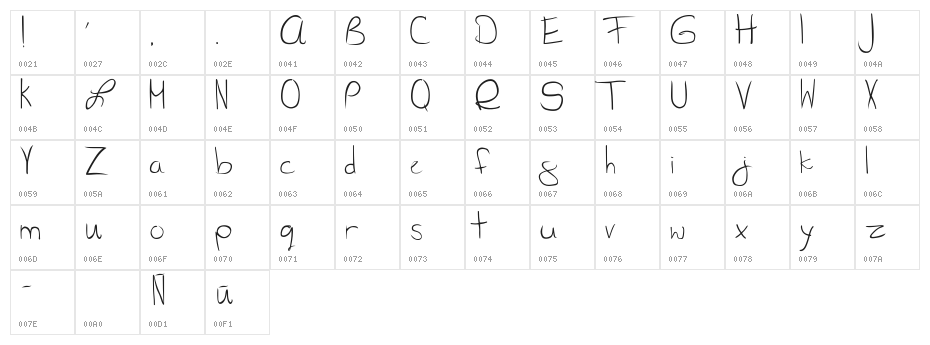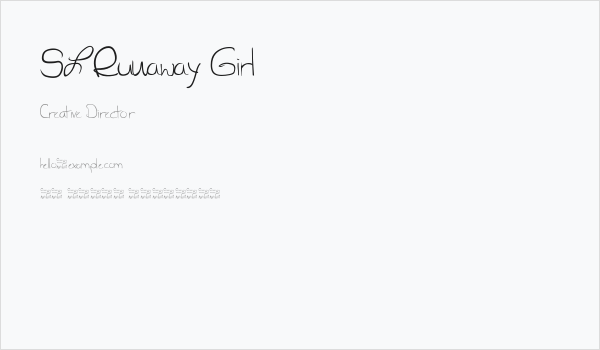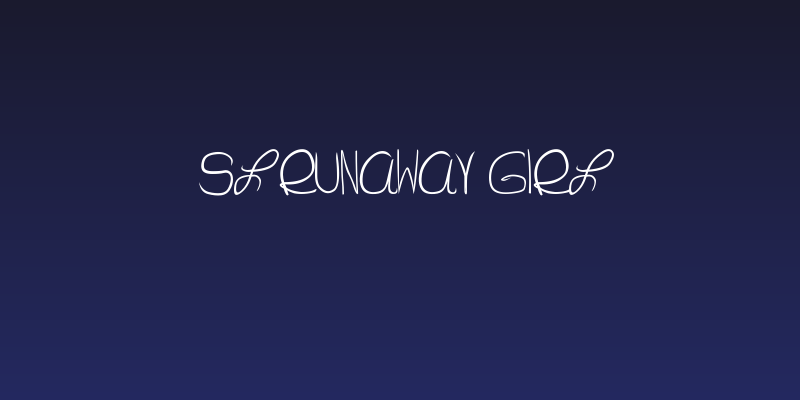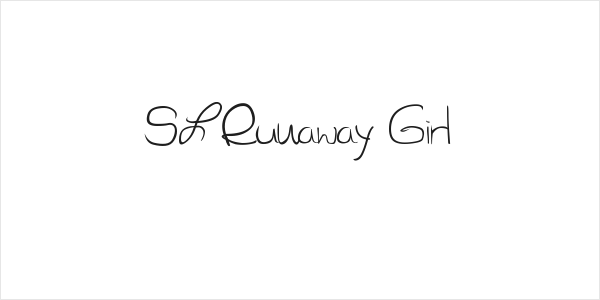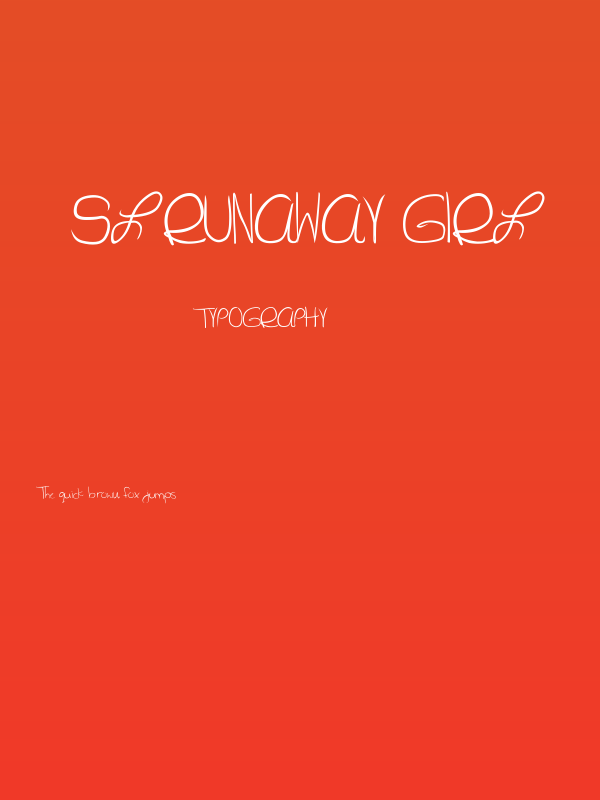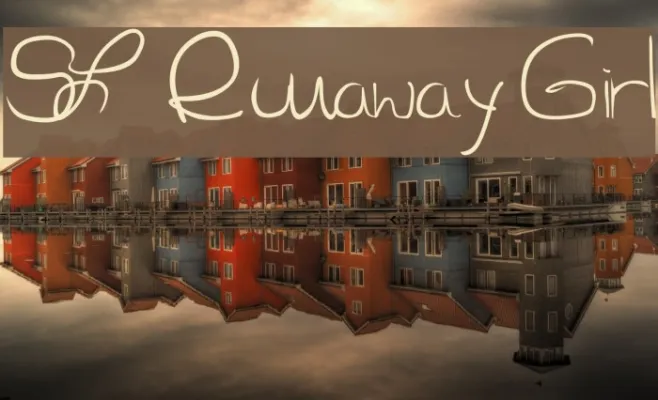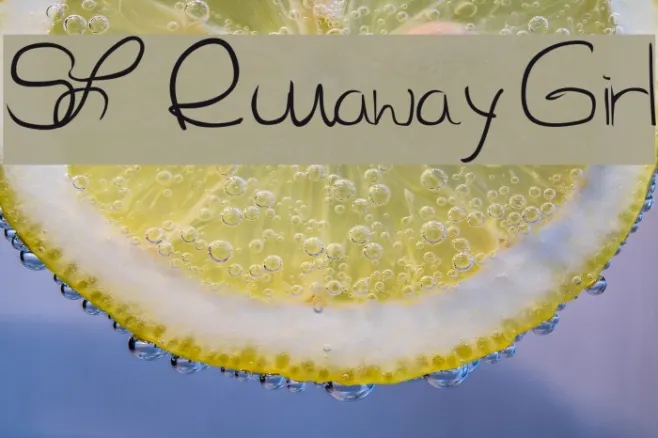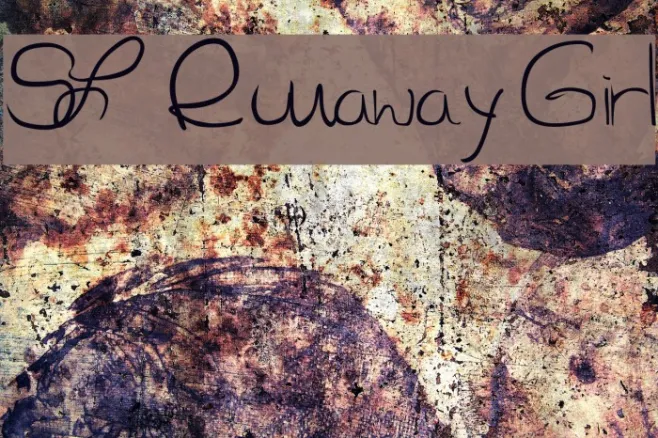
SL Runaway Girl Font
SL Runaway Girl Description
This font features a playful and whimsical handwritten style, characterized by its flowing, cursive-like strokes and irregular letterforms. The uppercase letters are tall and slightly narrow, with a casual, carefree appearance. The lowercase letters maintain a consistent style, with some letters extending below the baseline, adding to the font's dynamic and lively feel. The overall design is informal and artistic, making it suitable for creative projects. The font includes a full set of uppercase and lowercase letters, numbers, and a selection of special characters, all maintaining the same energetic and spontaneous style.
| Proposed Projects | Ideal for greeting cards, invitations, children's books, and creative branding. |